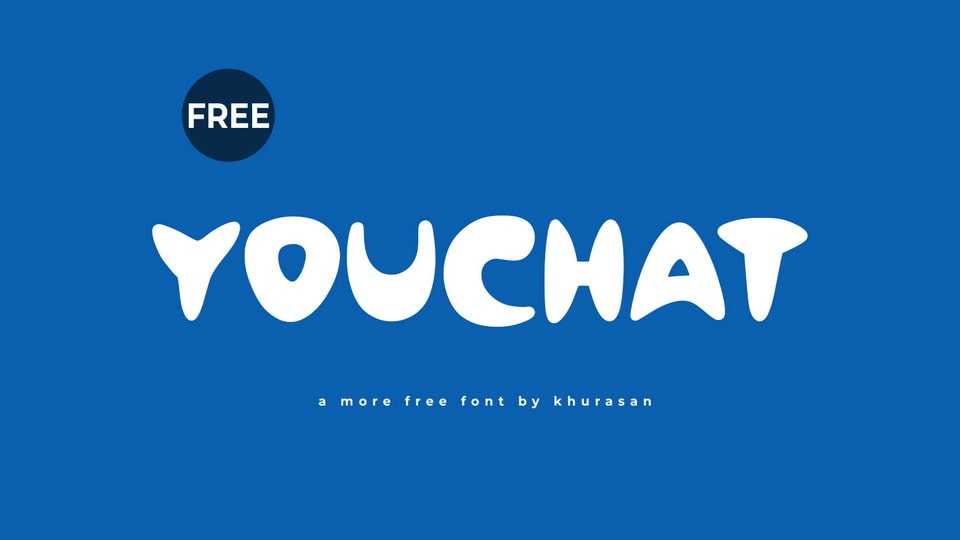
Download Youchat font, a bold, playful, and cool hand-crafted typeface that adds a dash of personality and charm to your designs. Youchat font is crafted with bold strokes and sharp curves, creating a dynamic and eye-catching typographic experience.